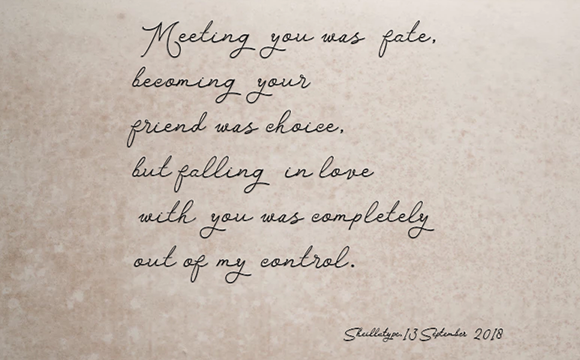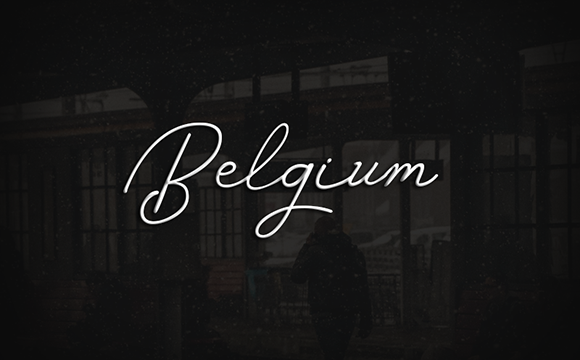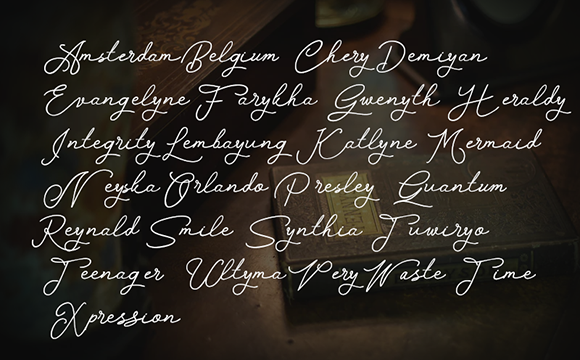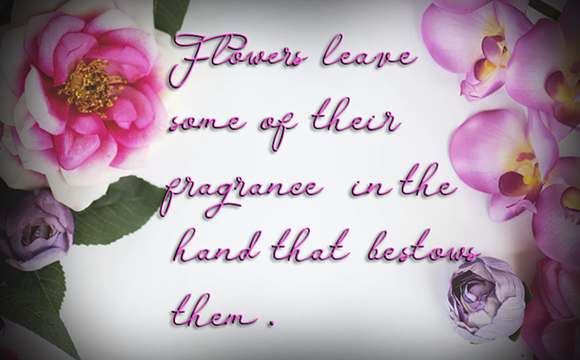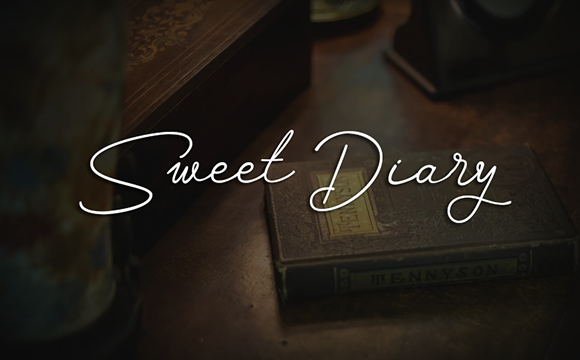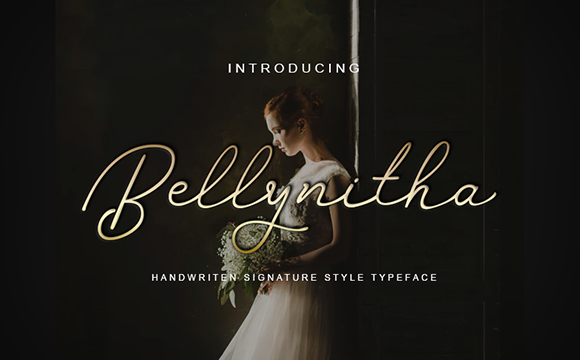
The Bellynitha Font: A Dancer’s Elegance in Typography
I’ll never forget the moment I stumbled upon the Bellynitha font while working on a wedding invitation project. My client wanted a elegant and sophisticated look, but I was struggling to find the perfect font to match her vision. That’s when I discovered Bellynitha, and it was love at first sight! 💕 The gentle, curved lines and soft feel of this script font immediately captured my attention, and I knew I had found the perfect fit for my project.
An Honest Review of Bellynitha
What I Love About Bellynitha ✨
- 💫 Dynamic and curved lines that evoke a sense of movement and elegance
- ✅ Soft and calm feel that’s perfect for creating a sophisticated atmosphere
- 🎨 Highly versatile and suitable for a wide range of design projects, from signatures and logos to photography and wedding materials
- 👀 Beautifully crafted characters that add a touch of personality to any design
While Bellynitha is an amazing font, there are a few things to keep in mind:
- 🤔 Some characters may not work well in very small sizes, so it’s best to use it at larger sizes (14pt or higher) for optimal results
- ⚠️ The font may not be suitable for body text or long paragraphs, as it can be a bit too ornate for reading
The Story Behind Bellynitha
Bellynitha was inspired by the gentle movements of a graceful dancer. The font’s creator wanted to capture the soft, flowing lines and elegant curves of a dancer’s movements, and translate them into a beautiful and versatile script font. The result is a font that’s both elegant and dynamic, perfect for a wide range of design projects.
Q: What is Bellynitha font?
A: Bellynitha is a script font inspired by the gentle movements of a graceful dancer. It’s known for its dynamic and curved lines, soft feel, and elegant characters.
Q: What can I use Bellynitha for?
A: Bellynitha is a versatile font that’s perfect for a wide range of design projects, including signatures, logos, photography, weddings, beauty products, and more!
Q: Is Bellynitha easy to read?
A: Bellynitha is best used at larger sizes (14pt or higher) for optimal readability. It’s not recommended for body text or long paragraphs, as it can be a bit too ornate for reading.